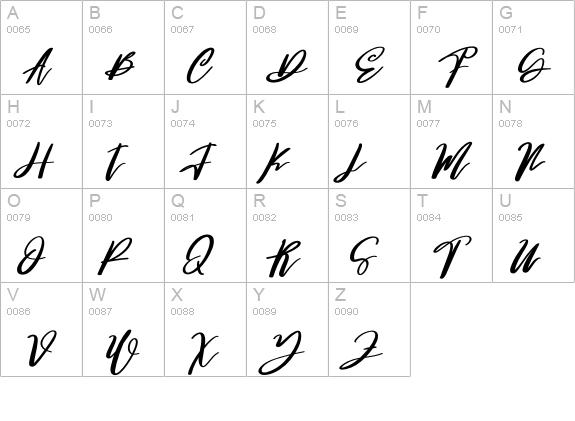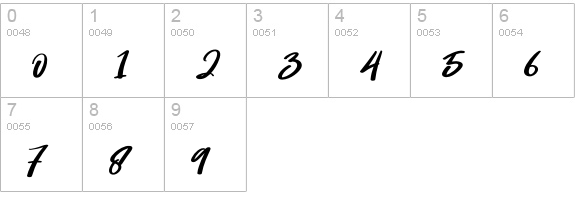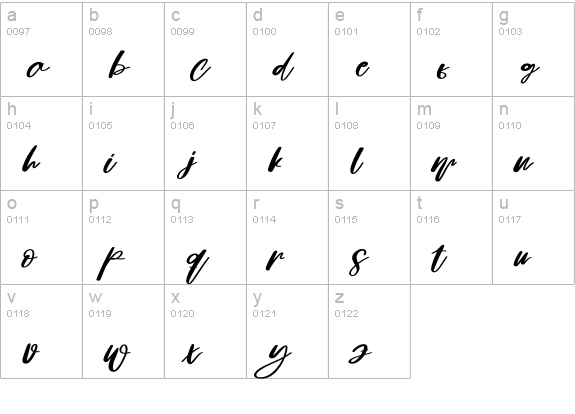
Introducing Pennature font, a stunning typeface that effortlessly blends elegance with a touch of whimsy. Designed with exquisite craftsmanship, this font features intricate details and flowing curves that give your designs a unique and sophisticated look.
Pennature font is perfect for a wide range of projects, from branding to invitations, posters, and more. Its versatility allows you to create eye-catching designs that stand out from the crowd.